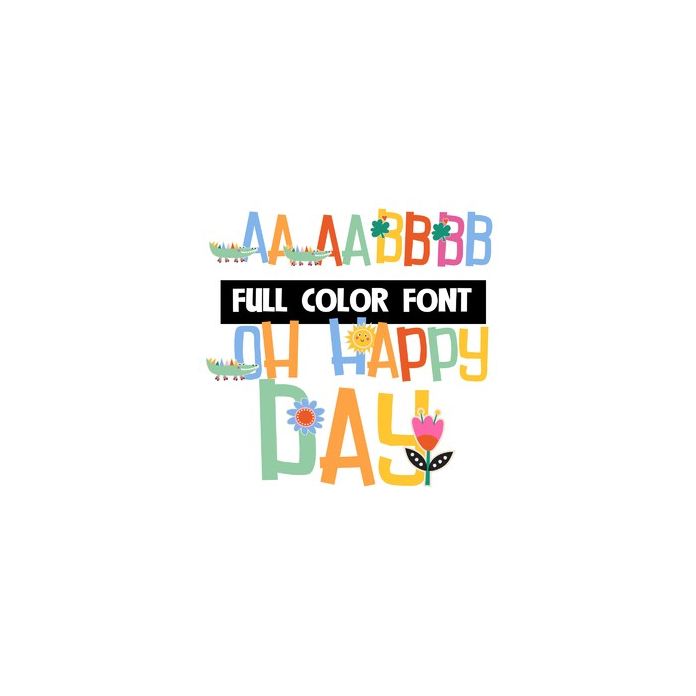
This full-color font features whimsical lettering and lucky animals and tokens on the uppercase. There is a second, alt version of both cases that you can access through Silhouette's glyph map.